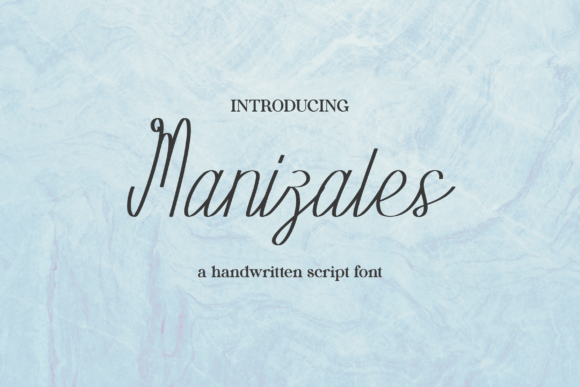
Journey through the enchanting world of Manizales, a captivating script font crafted with the utmost care by Giuzzan, a visionary artist with a keen eye for detail. Prepare to be mesmerized as you witness Manizales' graceful strokes and swirls, exuding elegance and charm in each meticulously crafted letterform.
Manizales is not just a font; it's an experience that captures the essence of handwritten beauty, inviting you to embark on a creative adventure where your imagination knows no bounds. Whether you're designing invitations for a special occasion, greeting cards filled with heartfelt sentiments, or branding materials that speak to your unique style, Manizales will be your trusted companion, transforming your words into works of art.
With its effortless flow and authentic cursive style, Manizales possesses an inherent warmth that reaches out and embraces your audience. It's a font that speaks to the heart, evoking feelings of nostalgia and personal connection. Whether you're a seasoned designer or just starting your creative journey, Manizales will empower you to express yourself in ways you never thought possible.
Unleash your creativity and let Manizales guide you through a symphony of captivating designs. Its versatility knows no bounds, adapting seamlessly to a wide range of projects, from whimsical invitations to heartfelt greeting cards and stunning branding materials. Manizales will elevate your designs, adding a touch of sophistication and elegance that will leave a lasting impression on all who behold it.
Say goodbye to ordinary fonts and embrace the extraordinary with Manizales. Its enchanting curves and graceful lines will transform your creative projects into masterpieces that radiate charm and individuality. Experience the joy of crafting designs that resonate with your audience, capturing their attention and leaving them longing for more.
Don't settle for mediocrity; embrace the beauty of Manizales today. Let your imagination soar as you explore the endless possibilities that await you within this remarkable font. Discover the transformative power of Manizales and witness how it breathes life into your creative endeavors, leaving an indelible mark on the hearts of all who encounter your designs.